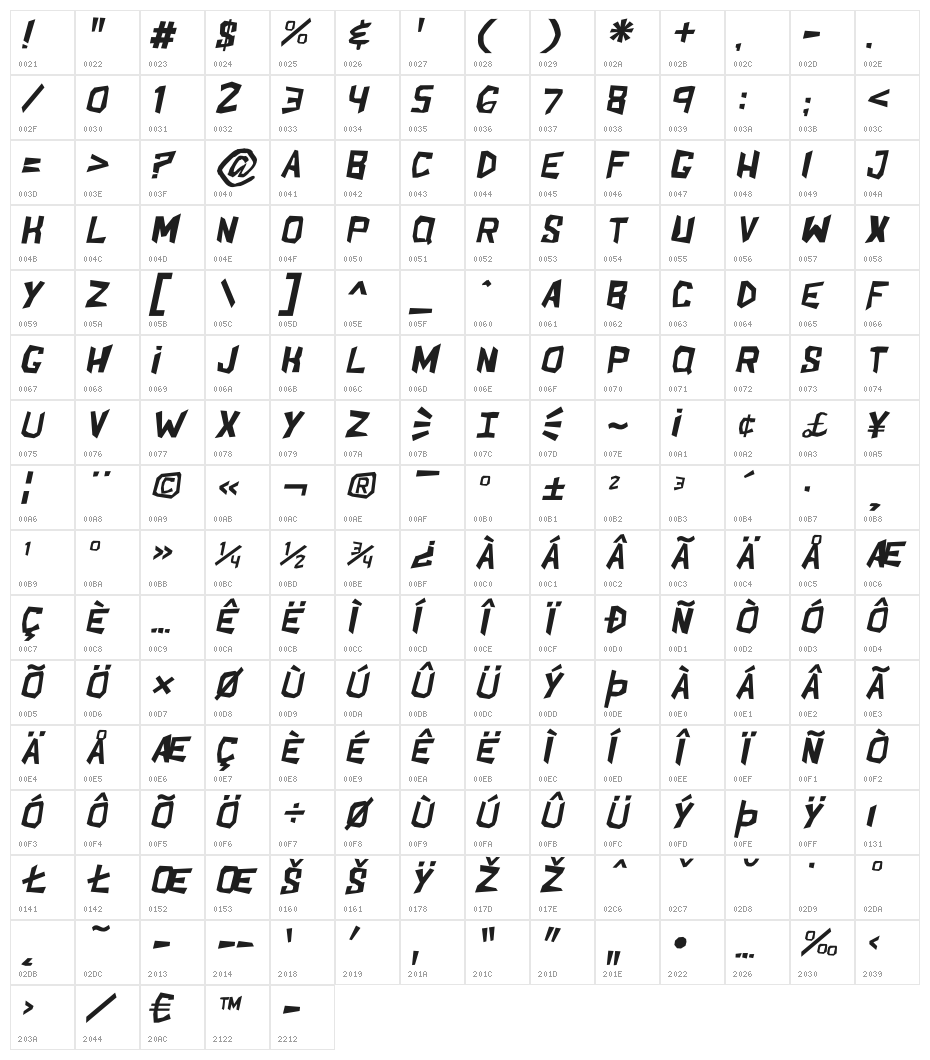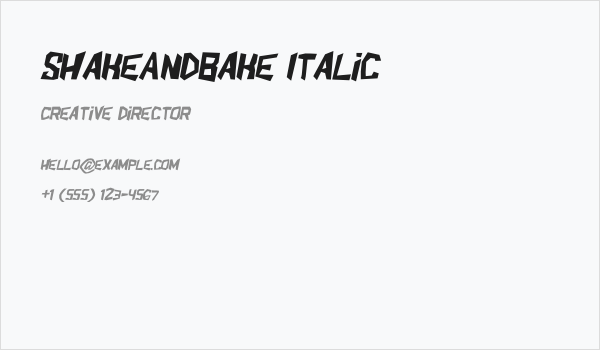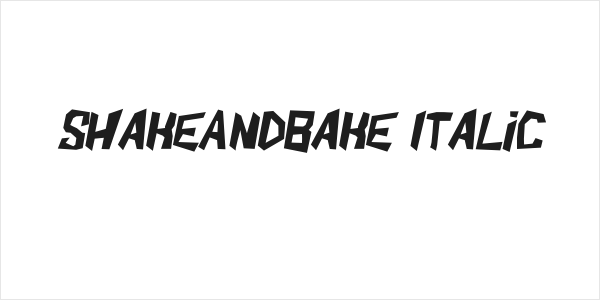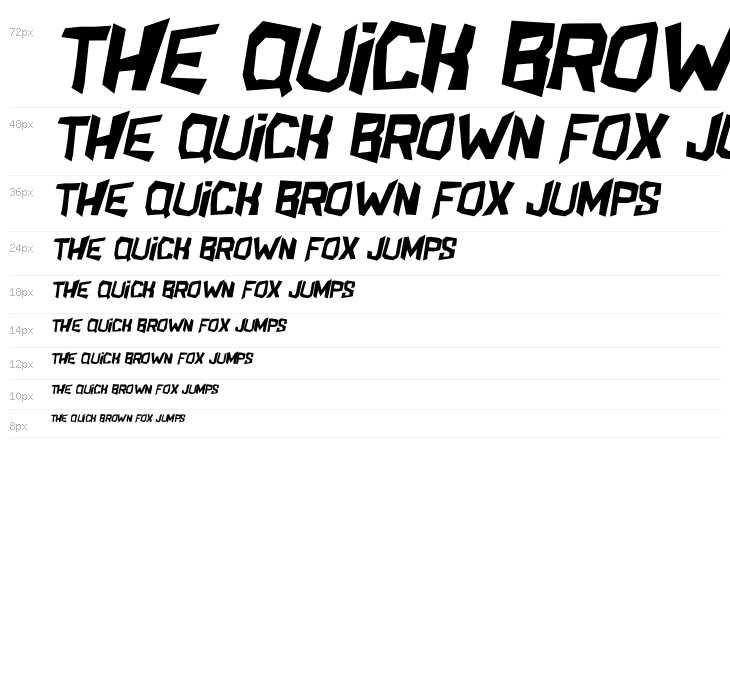
ShakeAndBake Italic Font
ShakeAndBake Italic Description
This font features a dynamic and edgy design with sharp, angular lines and a bold presence. The characters are italicized, giving a sense of motion and energy. Each letter has a unique, slightly irregular shape, contributing to a modern and unconventional aesthetic. The font maintains a consistent weight throughout, enhancing its boldness and making it stand out in any design. The numbers and special characters follow the same angular style, ensuring a cohesive look across all elements.
| Proposed Projects | Ideal for projects that require a modern and energetic feel, such as sports branding, music album covers, or dynamic event posters. |